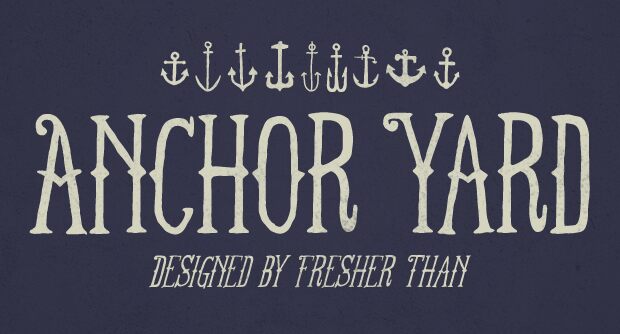
FT Anchor Yard Italic is a free old-school decorative display font with a tall, sharply slanted profile. Its narrow letters combine sweeping curves with abrupt hooked serifs and pointed notches. The changing stroke widths give the design a theatrical, slightly unruly edge.
It can turn a title into part of a period-inspired emblem rather than ordinary lettering. The ornate silhouette suits circus posters, saloon-themed packaging, music covers, and vintage printed event graphics, especially when the design calls for something wiry rather than weighty. Those recurring hooks and blade-like points connect naturally with engraved borders, decorative banners, and other ornamental artwork.
FT Anchor Yard Italic
Nick Quintero